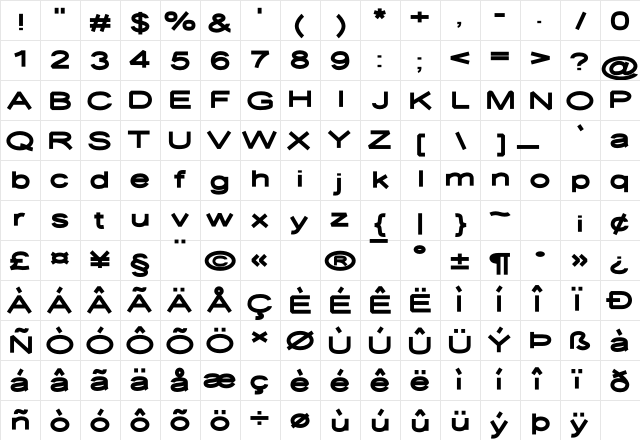
Desolator Ultrabold
| Foundry | RILJS |
| Designer | riljs |
Design Context for Desolator Typeface
Desolator takes a measured approach to typography — its balanced proportions and neutral character make it a reliable workhorse for both digital and print work. The heavy weight commands attention and anchors typographic hierarchies.